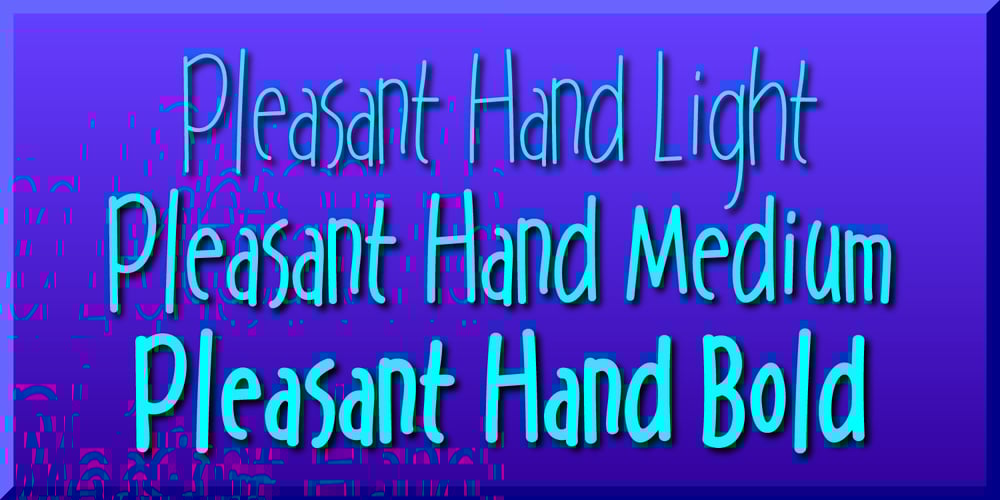
Pleasant Hand Font Family was designed by Gerald Gallo and published by Gerald Gallo. Pleasant Hand contains 3 styles and family package options. Pleasant Hand is designed as a condensed hand-lettered font. The family is casual and informal and is ideal for use in conveying these qualities.